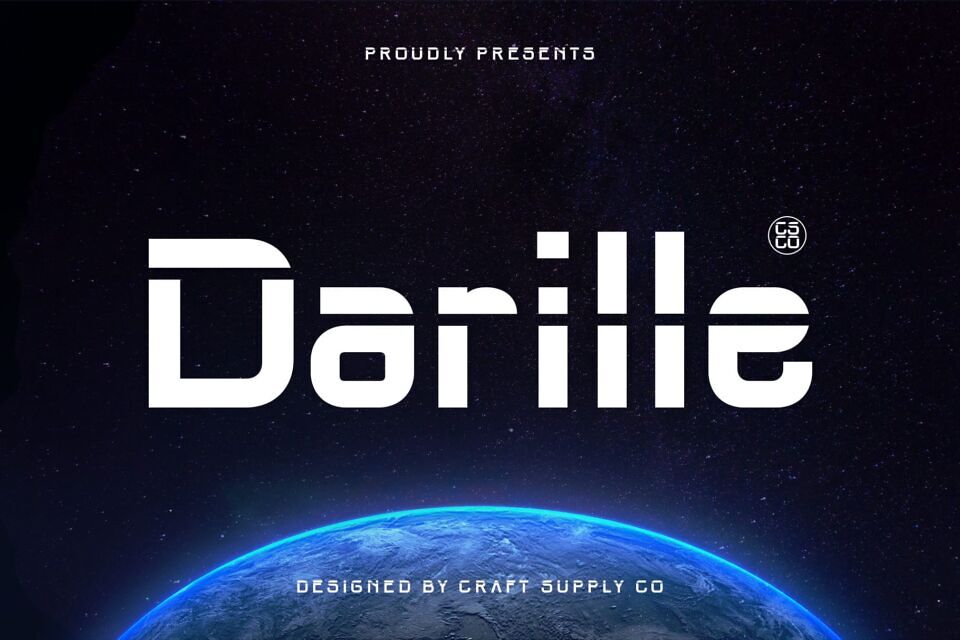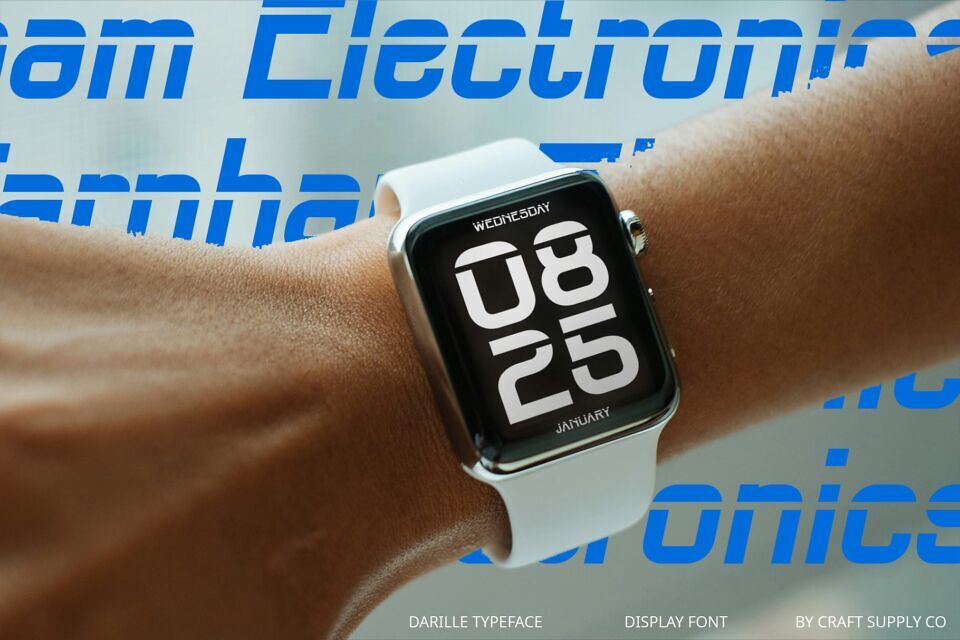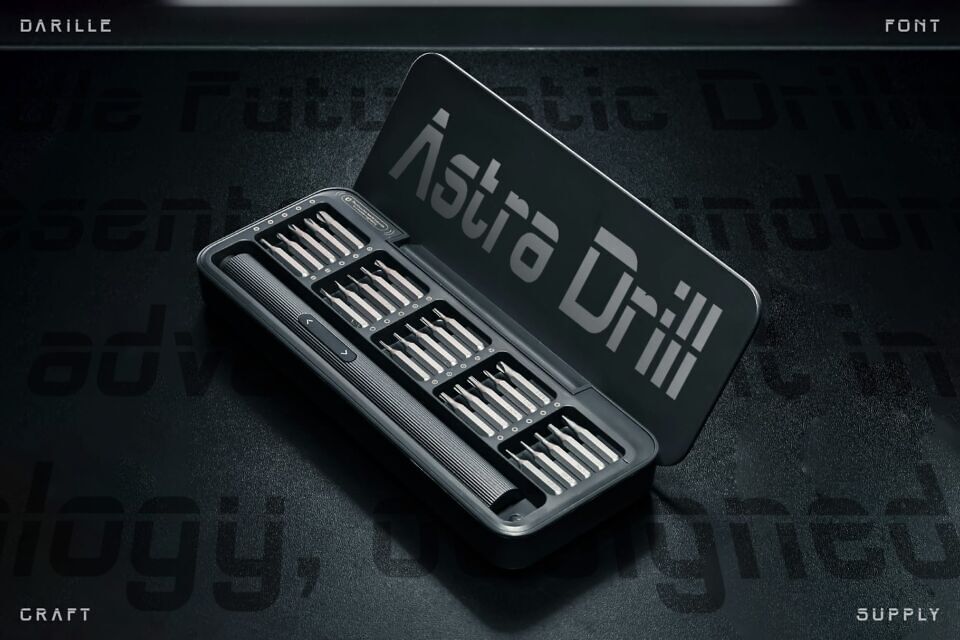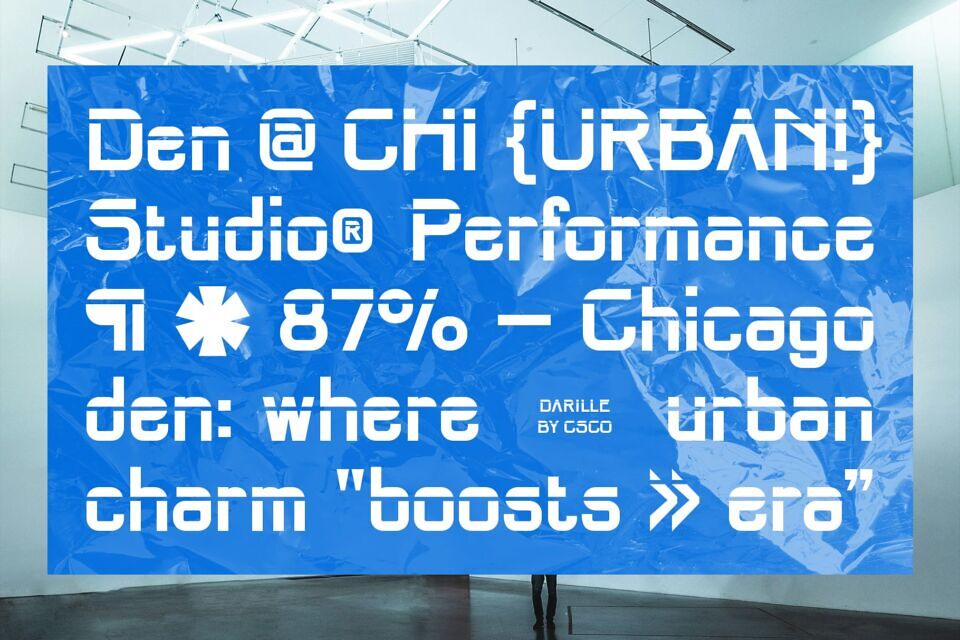
Darille Font
Darille, a modern sans serif font, exudes a futuristic vibe, perfect for innovative designs. Its sleek, clean lines and contemporary style make it ideal for tech projects, branding, and forward-thinking creations.
Whether crafting a high-tech website or a striking logo, Darille delivers a dynamic, sophisticated look that grabs attention. Versatile and user-friendly, it suits headlines, banners, and body text, blending modernity with a cutting-edge feel to elevate any design.